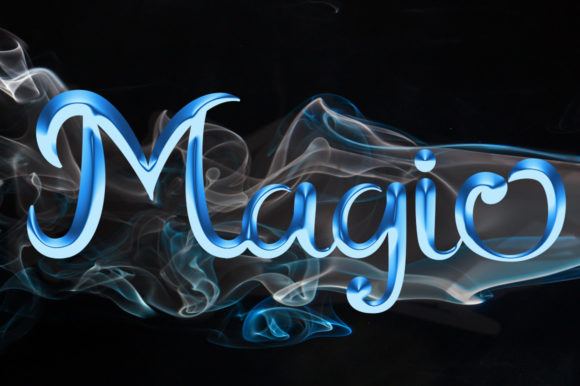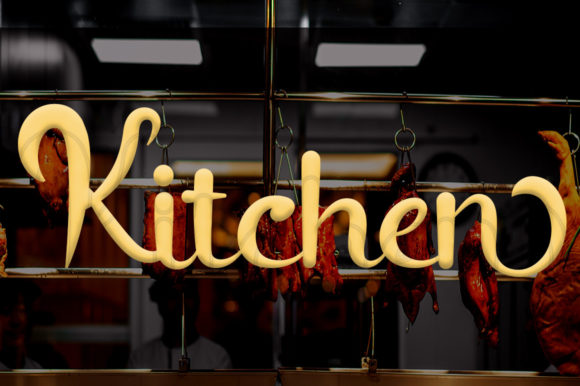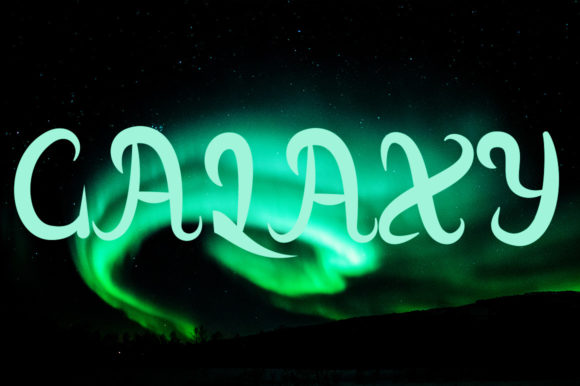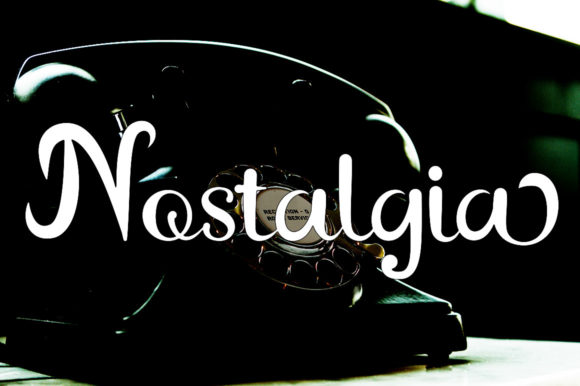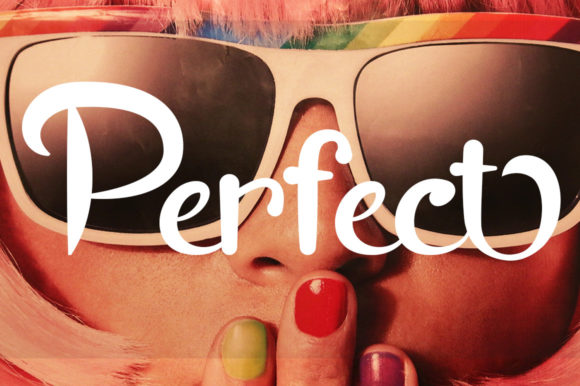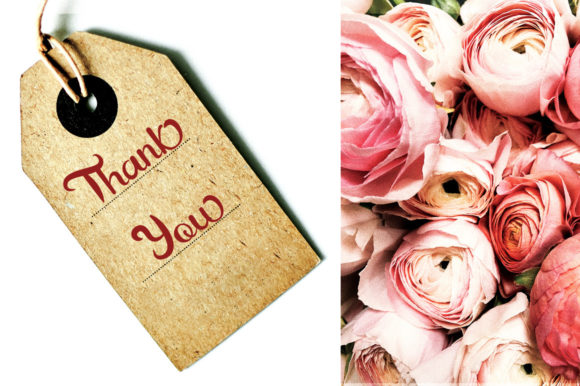
Elevate Your Designs with Dark Green Font: The Ultimate Choice for High-Quality Vibes
Are you a designer or crafter looking for a font that can add a touch of elegance and sophistication to your creations? Look no further than Dark Green, an exquisite script font designed to elevate your product packaging, invitation cards, t-shirt screen printing, shop names, event posters, and more. With its high-quality vibes and versatility, Dark Green is an incredible asset to any font library.
The Power of Dark Green Font
Dark Green is more than just a font – it’s a design statement. Its unique script style is perfect for adding a touch of luxury and refinement to any project. Whether you’re working on a product packaging design, an invitation card, or a t-shirt screen printing project, Dark Green is the perfect choice. Its elegant and sophisticated vibe is sure to impress your clients and leave a lasting impression.
What Makes Dark Green Font So Special?
So, what sets Dark Green apart from other fonts? Here are just a few reasons why this font is a must-have for designers and crafters:
- High-quality vibes: Dark Green has a unique ability to add a touch of high-quality vibes to any project. Its elegant and sophisticated style is perfect for designs that require a level of refinement and luxury.
- Versatility: Dark Green is a versatile font that can be used for a wide range of projects, from product packaging to invitation cards, t-shirt screen printing, shop names, event posters, and more.
- Elegant and sophisticated: Dark Green has an elegant and sophisticated style that is sure to impress your clients and leave a lasting impression.
How to Use Dark Green Font in Your Designs
Using Dark Green in your designs is easy. Here are a few tips to get you started:
- Pair it with a simple background: Dark Green looks best when paired with a simple background. Try pairing it with a solid color or a subtle texture to make your design pop.
- Use it for headlines: Dark Green is perfect for headlines and titles. Use it to add a touch of elegance and sophistication to your design.
- Experiment with different sizes: Dark Green looks great in a variety of sizes. Experiment with different sizes to find the one that works best for your design.
Why Designers and Crafters Love Dark Green Font
Dark Green has quickly become a favorite among designers and crafters. Here are just a few reasons why:
- Easy to read: Despite its elegant and sophisticated style, Dark Green is easy to read. This makes it perfect for designs that require a level of legibility.
- Unique and distinctive: Dark Green has a unique and distinctive style that sets it apart from other fonts. This makes it perfect for designers and crafters who want to add a touch of personality to their designs.
- High-quality: Dark Green is a high-quality font that is designed to deliver exceptional results. Its elegant and sophisticated style is sure to impress your clients and leave a lasting impression.
In conclusion, Dark Green is an exquisite script font that is perfect for designers and crafters who want to add a touch of elegance and sophistication to their creations. With its high-quality vibes, versatility, and elegant style, Dark Green is an incredible asset to any font library. Whether you’re working on a product packaging design, an invitation card, or a t-shirt screen printing project, Dark Green is the perfect choice. So why wait? Download Dark Green today and start elevating your designs to new heights!